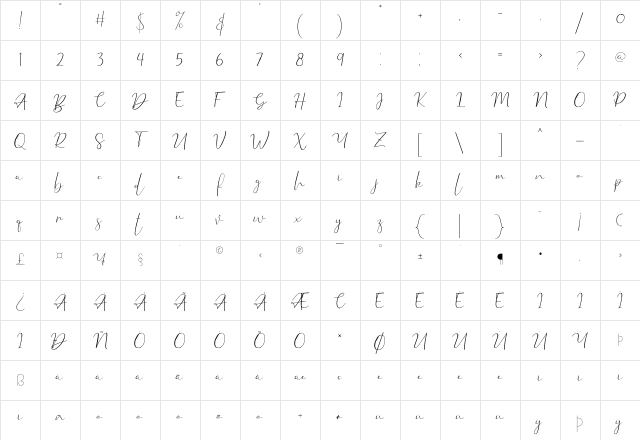
Complete Violet Watson Regular glyph index. Displaying only characters natively supported by Violet Watson Regular font.
Violet Watson is a composed and adaptable typeface that performs quietly and consistently across a wide range of design contexts.